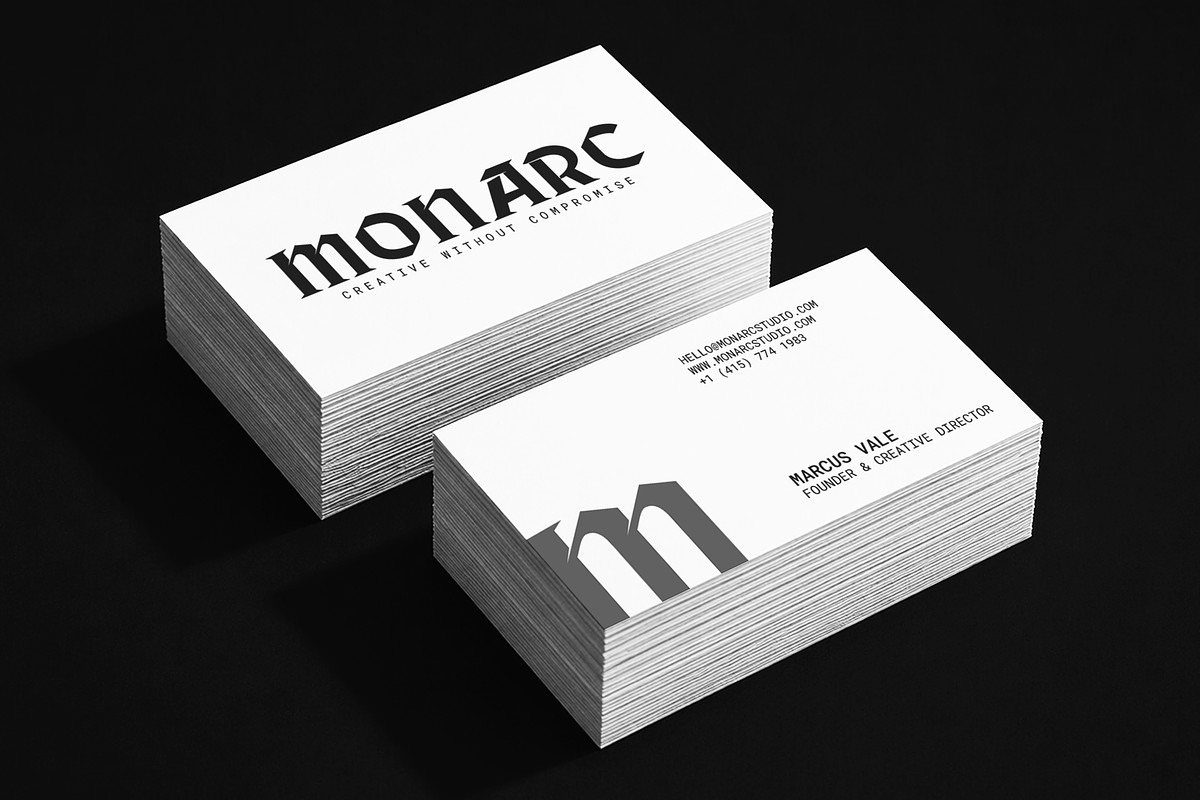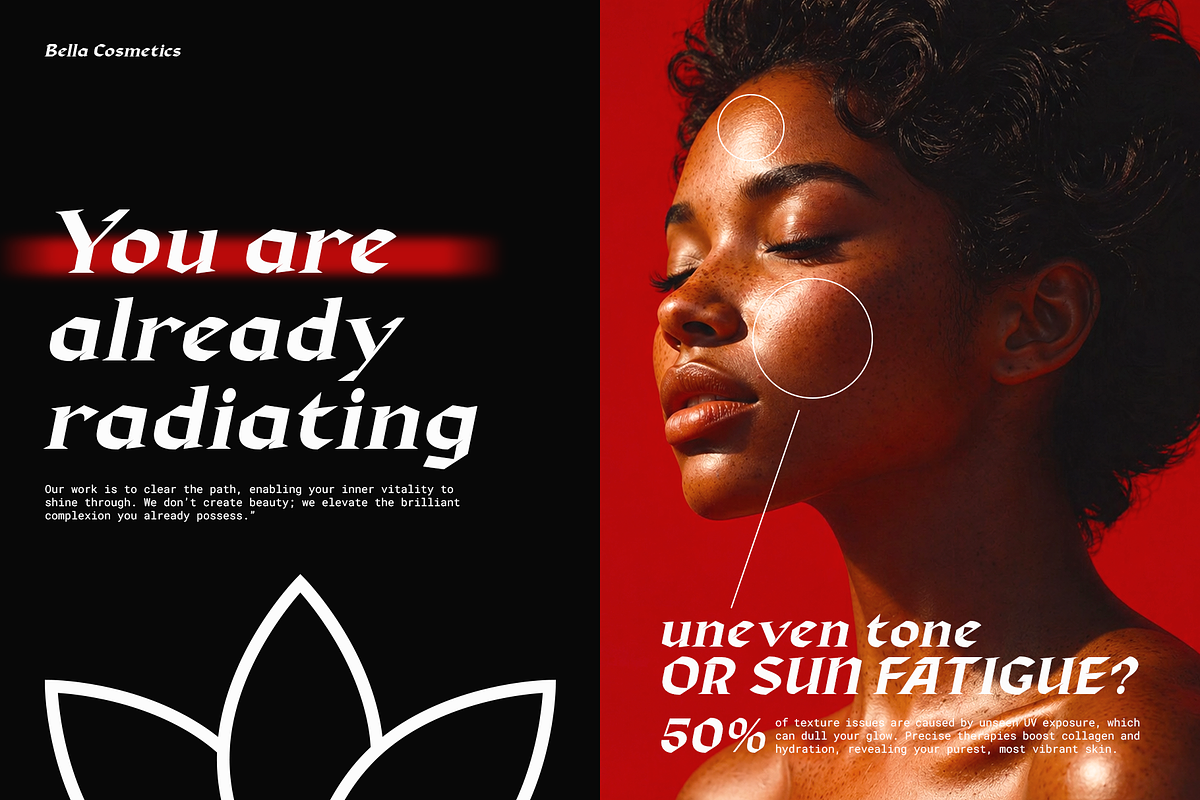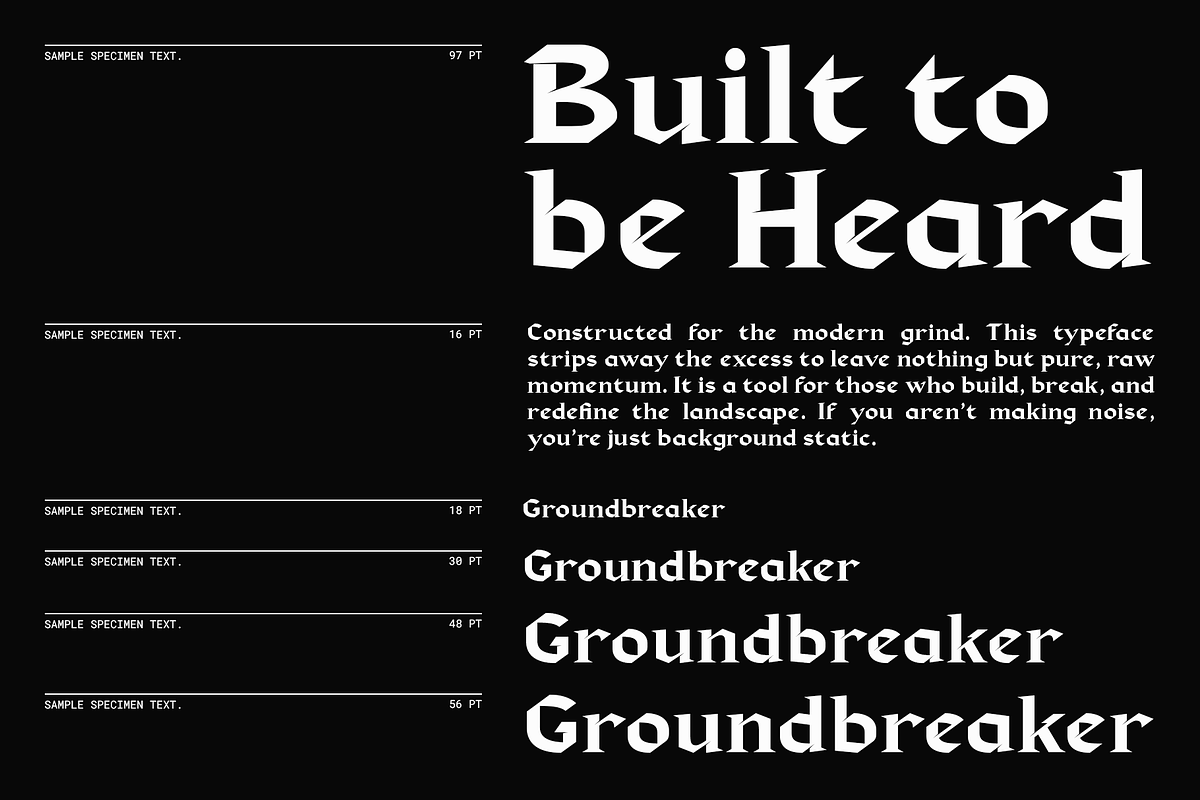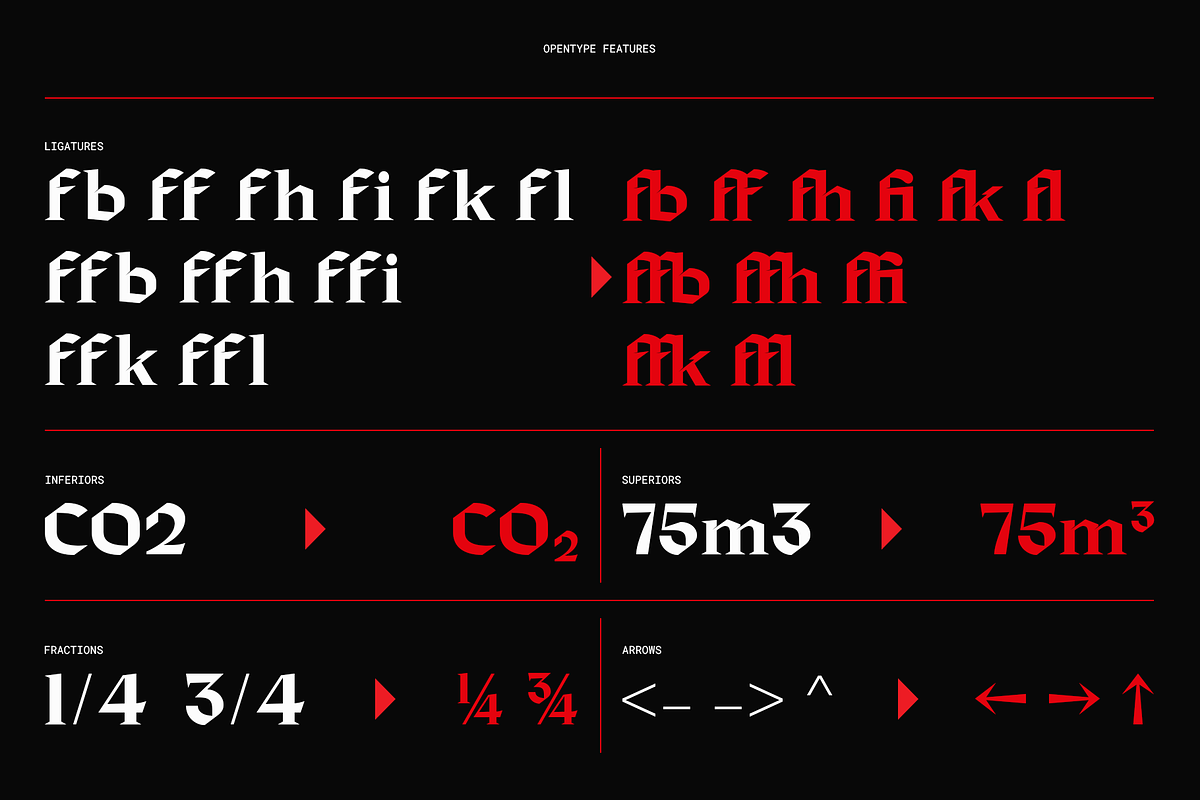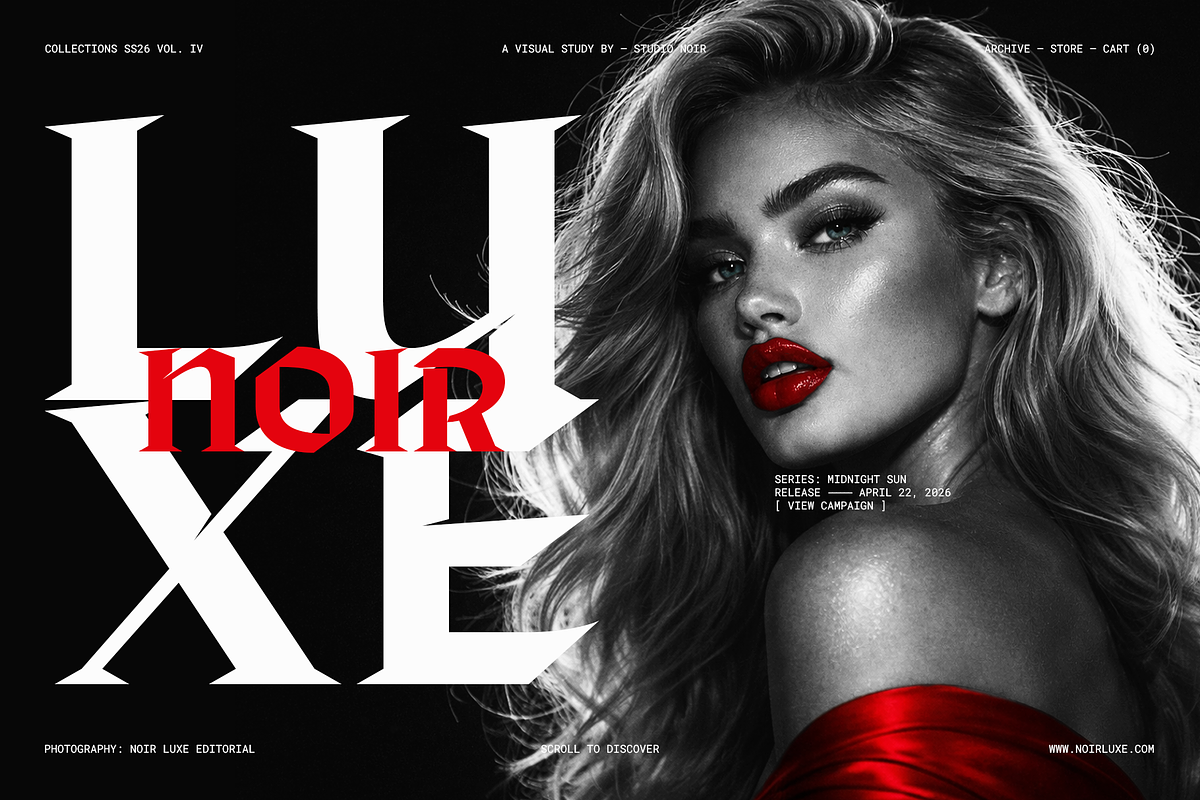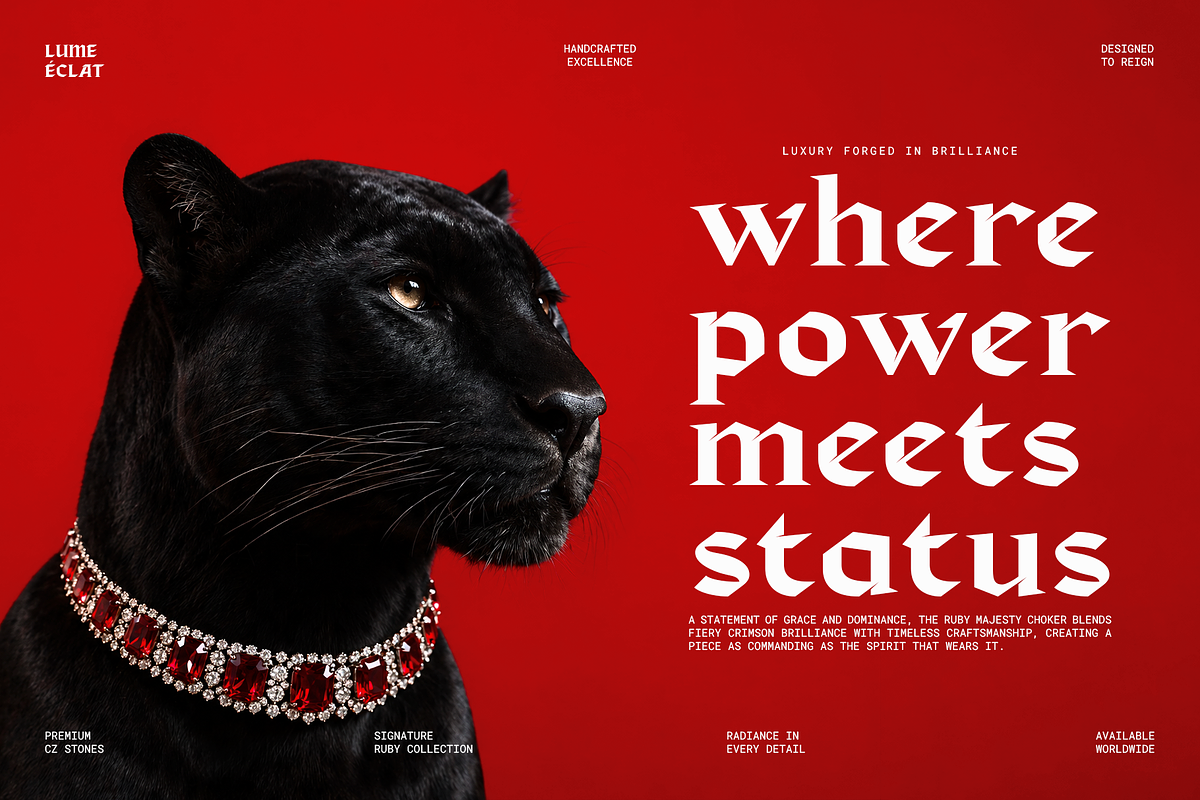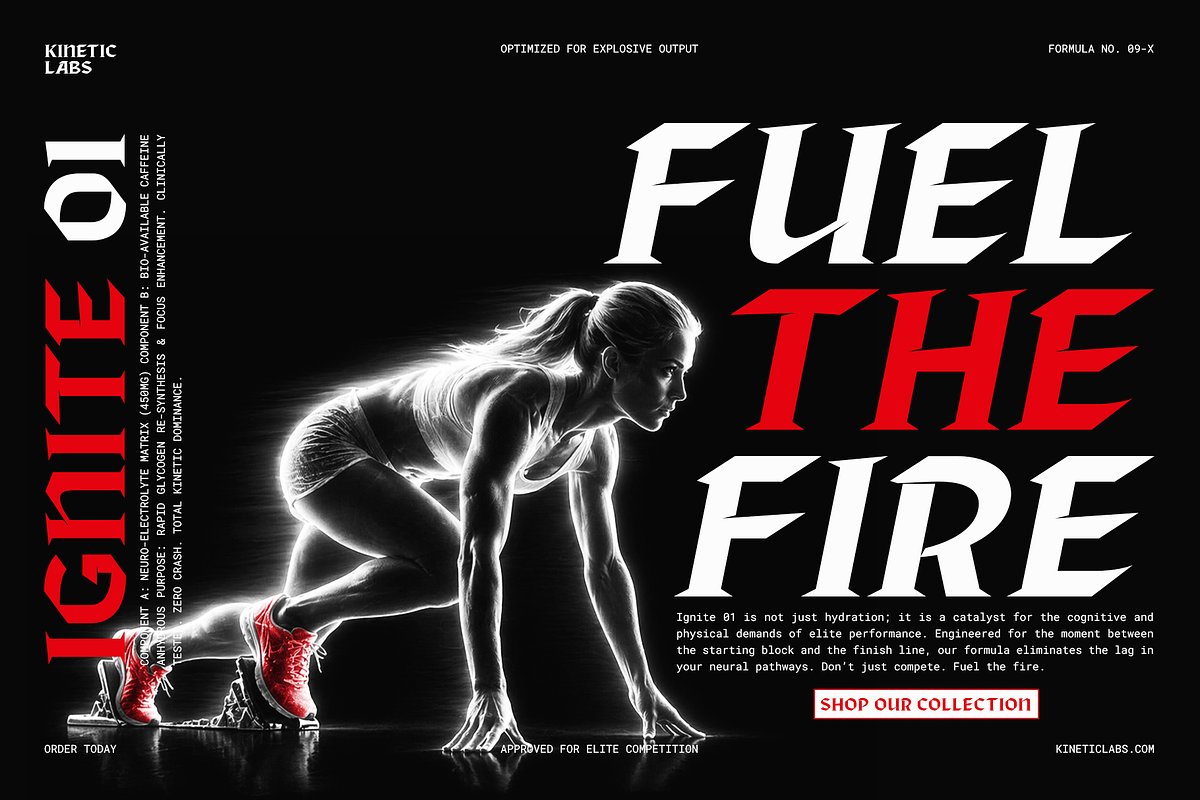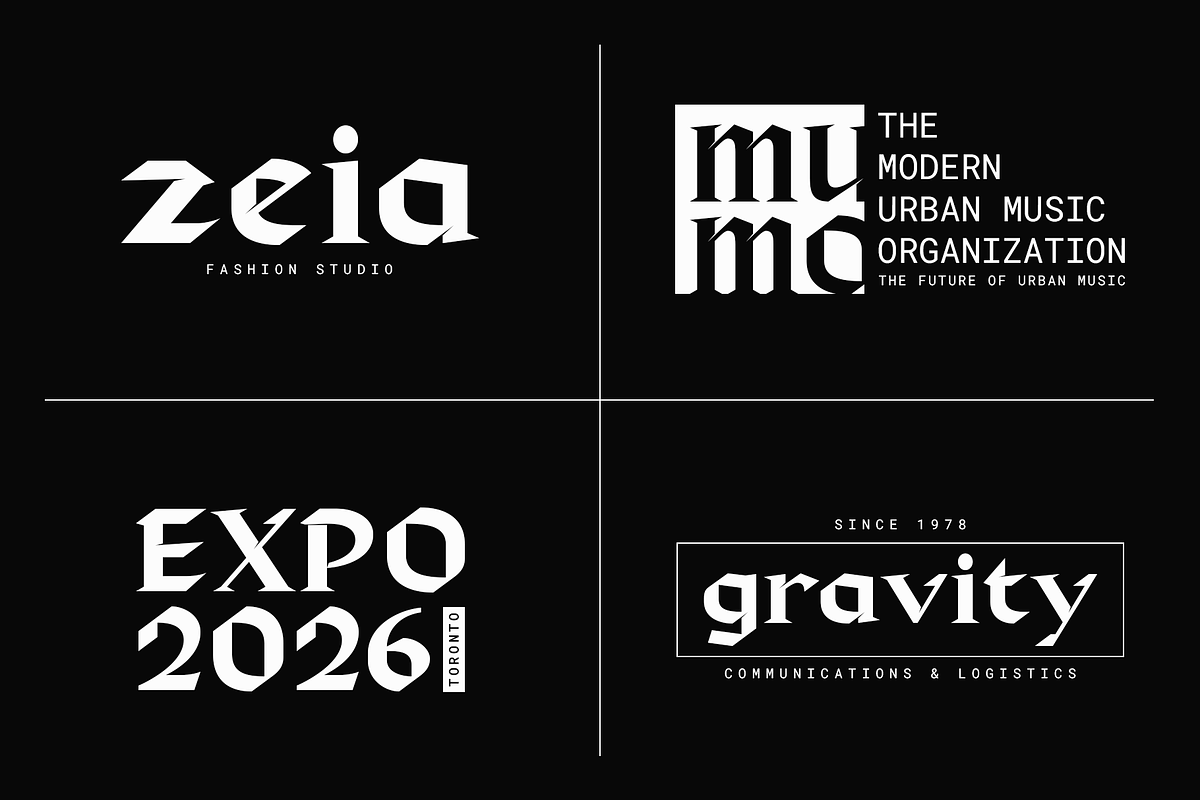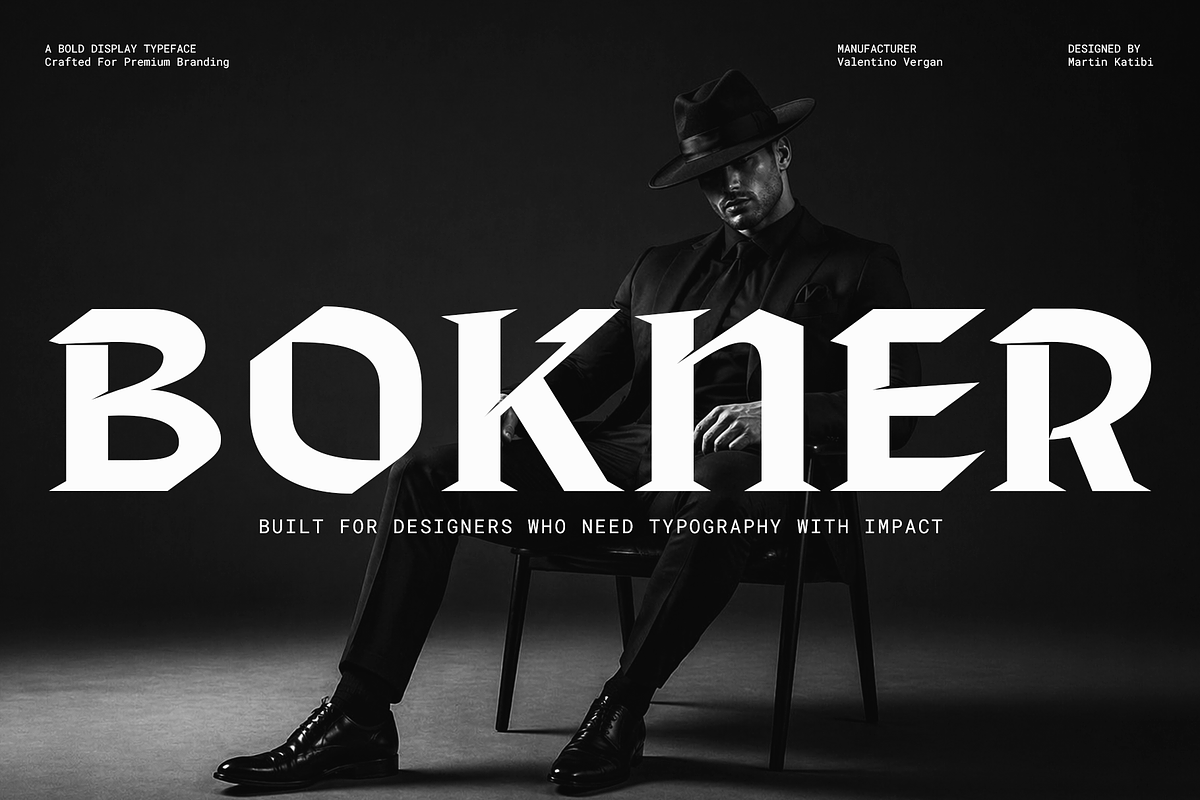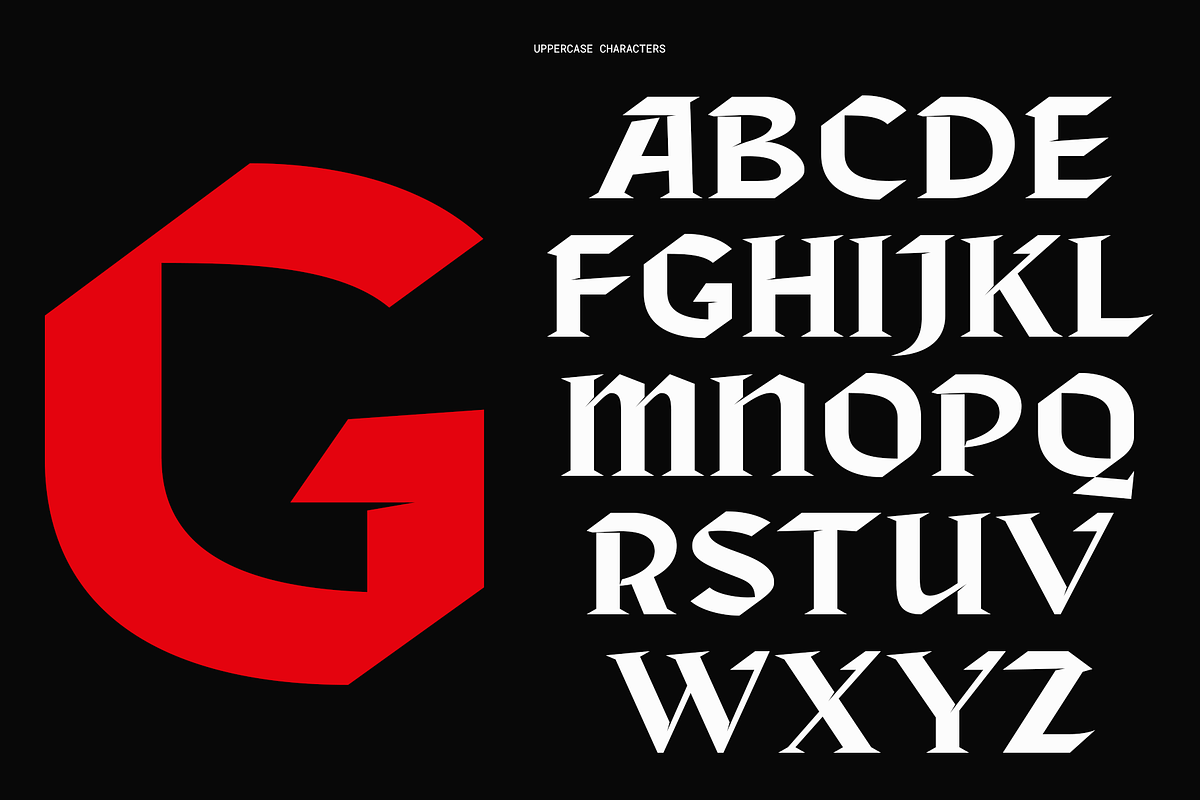
Bokner - Built for Impact
Bokner is a bold modern gothic display typeface crafted for designers who need typography that commands attention and delivers premium visual impact.
Crafted for designers who need typography with presence, Bokner combines strong structural forms, sharp geometric details, and refined visual balance to deliver a typeface that feels powerful, modern, and premium. Every character is built to command attention, Bokner will skilfully give your work the bold impact needed to stand out across branding, editorial, packaging, and digital design.
Every character in Bokner is designed to create a strong visual rhythm — balancing sharp angular details with controlled proportions to produce a typeface that feels both modern and timeless. Whether used in oversized headlines, luxury branding systems, fashion campaigns, or bold visual identities, Bokner gives your work a distinctive voice that commands attention instantly.
More than just a display font, Bokner is built as a professional creative tool. It includes carefully crafted ligatures, directional arrows, superior figures, multilingual support, and a refined set of details that make it versatile across a wide range of creative applications. Each feature has been designed to enhance both function and presentation, allowing designers to create work that feels intentional, polished, and premium.
Bokner is ideal for projects that demand bold presence and clear visual hierarchy. From branding systems, fashion editorials, impactful posters, packaging, creative campaigns and much more, Bokner helps designers build work that feels strong, modern, and unmistakably distinctive.
PERFECT FOR:
Branding and logo design
Editorial layouts
Packaging design
Posters and campaigns
Fashion branding
Luxury identities
Digital headlines
Creative direction
Uppercase & lowercase characters
Numerals & punctuation
Standard ligatures
Directional arrows
Superior figures
Extended Latin support
Multilingual characters
When your design needs typography that feels bold, structured, and unmistakably premium, Bokner delivers the presence that turns ideas into identity.